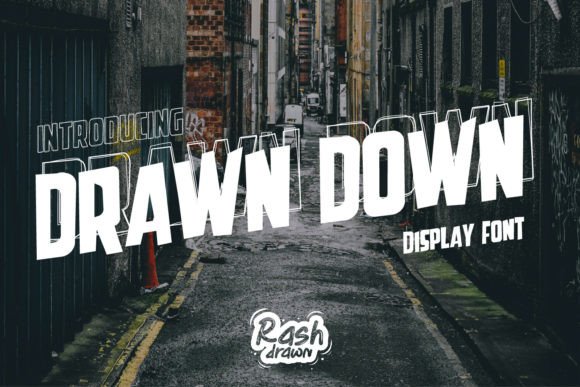
Introducing Drawn Down Font: A Playful and Bold Display Font
Are you looking for a font that can add a touch of fun and personality to your designs? Look no further than the Drawn Down Font. This playful and bold display font is sure to catch the eye with its thick, confident strokes and whimsical curves. In this article, we’ll take a closer look at the Drawn Down Font, its features, and how you can use it to elevate your designs.
Key Features of Drawn Down Font
- Playful and Bold: The Drawn Down Font is designed to make a statement. Its bold and playful strokes are perfect for headlines, logos, and any other design element that needs to stand out.
- Thick and Confident Strokes: The font features thick, confident strokes that give it a sense of authority and personality.
- Whimsical Curves: The whimsical curves in the Drawn Down Font add a touch of playfulness and fun, making it perfect for designs that need a little extra flair.
- Versatile: The Drawn Down Font is versatile and can be used for a wide range of designs, from posters and flyers to logos and branding materials.
How to Use Drawn Down Font in Your Designs
The Drawn Down Font is perfect for designs that need a touch of fun and personality. Here are some ideas on how to use it:
- Headlines: Use the Drawn Down Font for headlines that need to stand out. Its bold and playful strokes make it perfect for grabbing attention.
- Logos: The Drawn Down Font is perfect for logos that need to make a statement. Its unique and playful design will help your brand stand out.
- Posters and Flyers: Use the Drawn Down Font for posters and flyers that need to grab attention. Its bold and playful design will help your message stand out.
- Branding Materials: The Drawn Down Font is perfect for branding materials such as business cards, brochures, and packaging.
The Benefits of Using Drawn Down Font
The Drawn Down Font offers a range of benefits for designers, including:
- Unique Design: The Drawn Down Font has a unique and playful design that will help your designs stand out.
- Easy to Read: Despite its bold and playful design, the Drawn Down Font is easy to read, making it perfect for designs that need to communicate a message.
- Versatile: The Drawn Down Font is versatile and can be used for a wide range of designs.
- Time-Saving: The Drawn Down Font can save you time and effort in your design work. Its unique design and versatility make it a great addition to your font library.
Tips for Using Drawn Down Font
Here are some tips for using the Drawn Down Font in your designs:
- Use it Sparingly: The Drawn Down Font is bold and playful, so use it sparingly to avoid overwhelming your design.
- Pair it with Other Fonts: The Drawn Down Font pairs well with other fonts, so experiment with different combinations to find the perfect look for your design.
- Experiment with Colors: The Drawn Down Font looks great in a range of colors, so experiment with different colors to find the perfect look for your design.
- Keep it Simple: Despite its bold and playful design, the Drawn Down Font works best when used in simple and clean designs.
The Drawn Down Font is a playful and bold display font that’s sure to catch the eye. Its thick, confident strokes and whimsical curves make it perfect for designs that need a touch of fun and personality. With its versatility and ease of use, the Drawn Down Font is a great addition to any designer’s font library. Whether you’re designing a logo, poster, or branding materials, the Drawn Down Font is sure to make a statement.